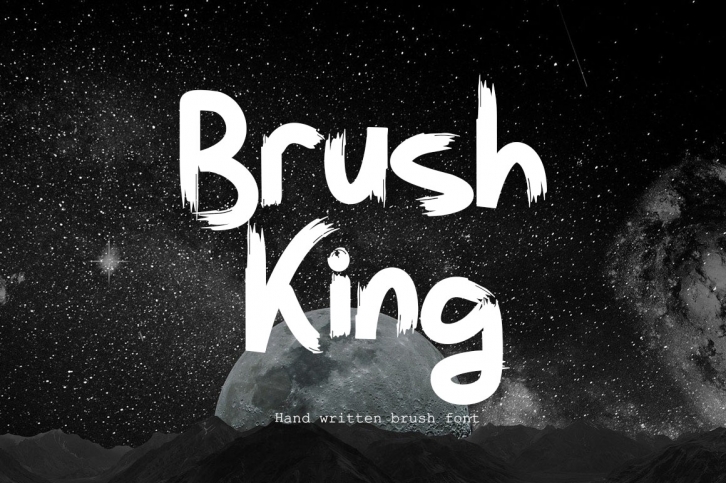
Brush King is a cool, brushed and natural display font. It can be added to a variety of casual designs such as t-shirts, sportswear, logos, advertisements, clothing, and more.